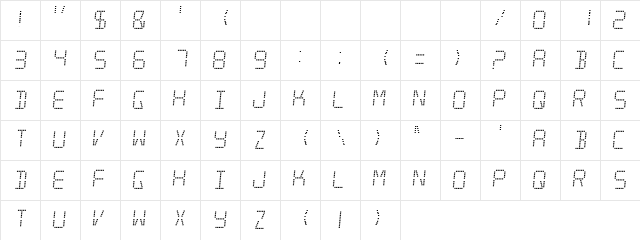
Minisystem Normal Free Font
Minisystem Normal
Design Context for Minisystem
Minisystem is a composed and adaptable typeface that performs quietly and consistently across a wide range of design contexts.